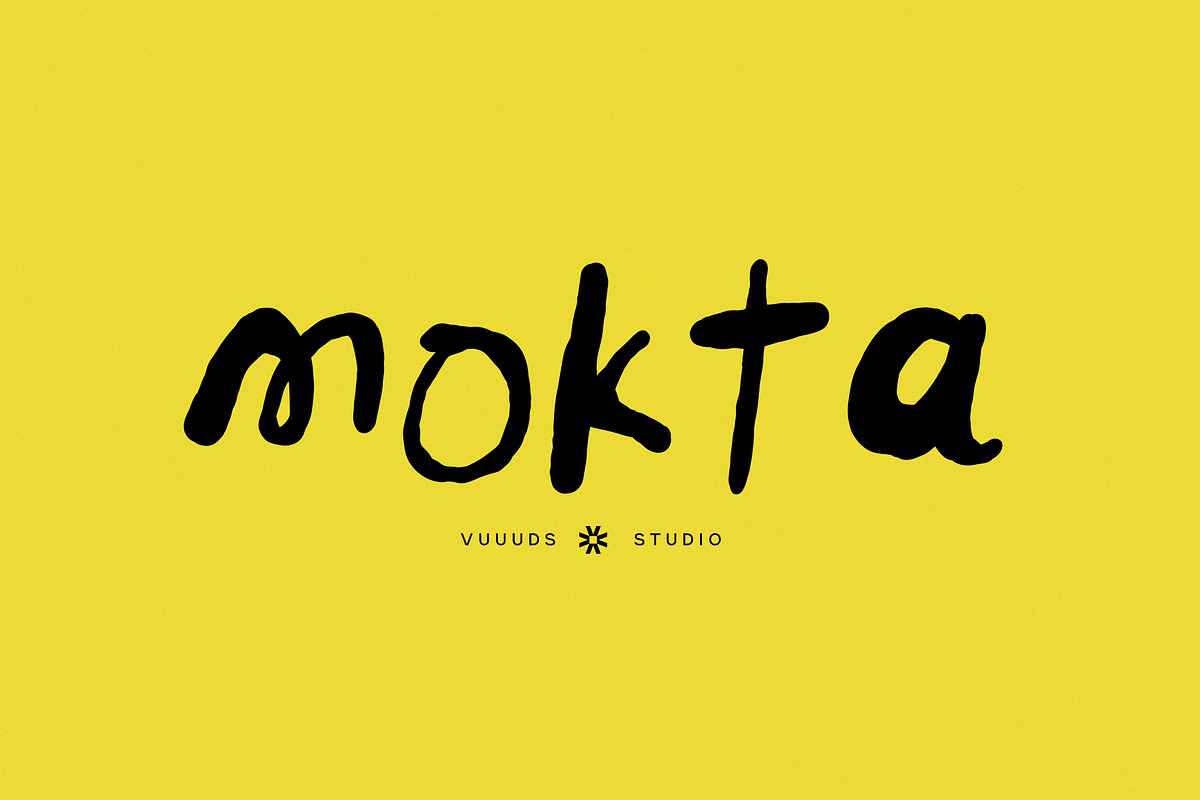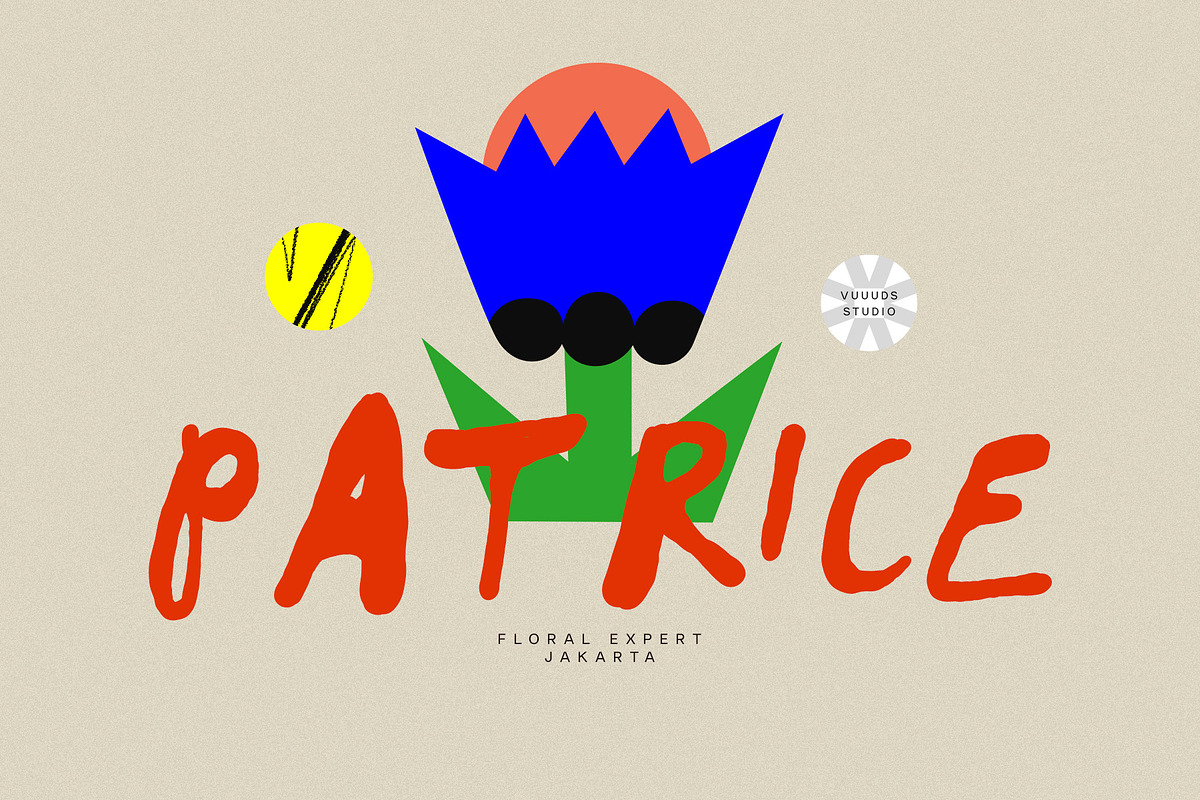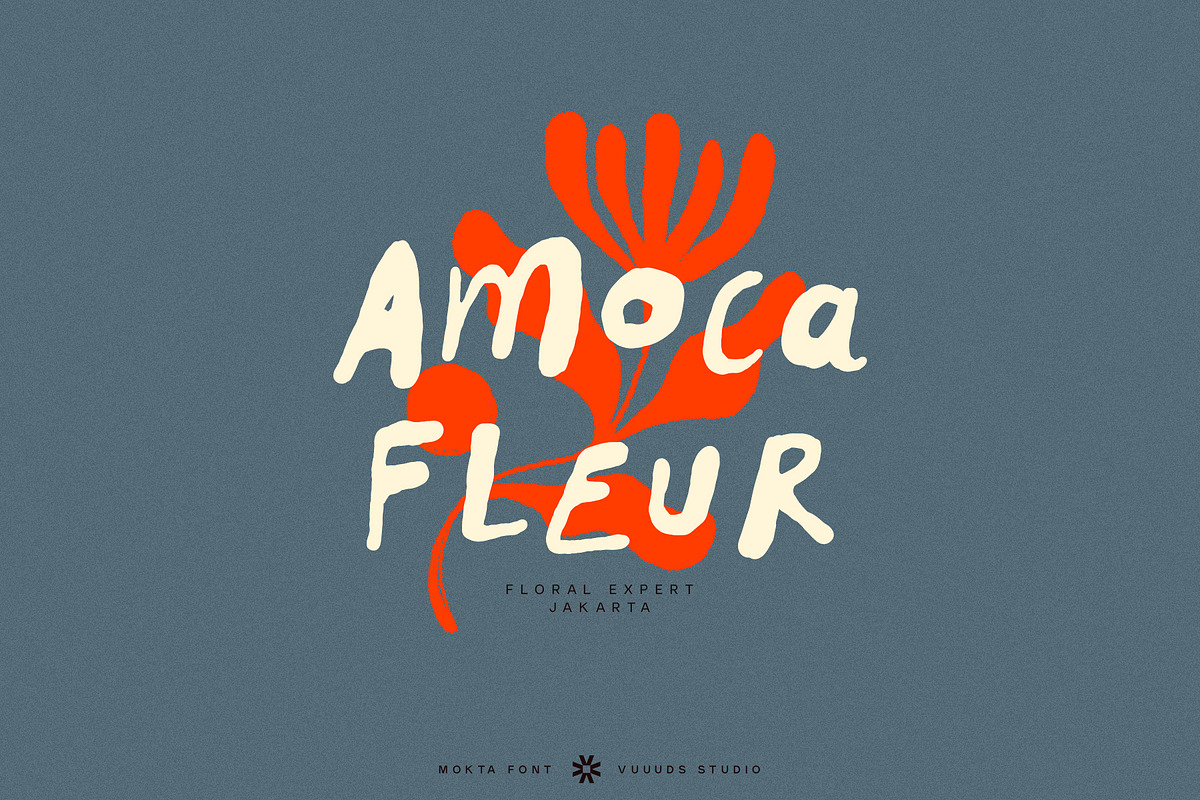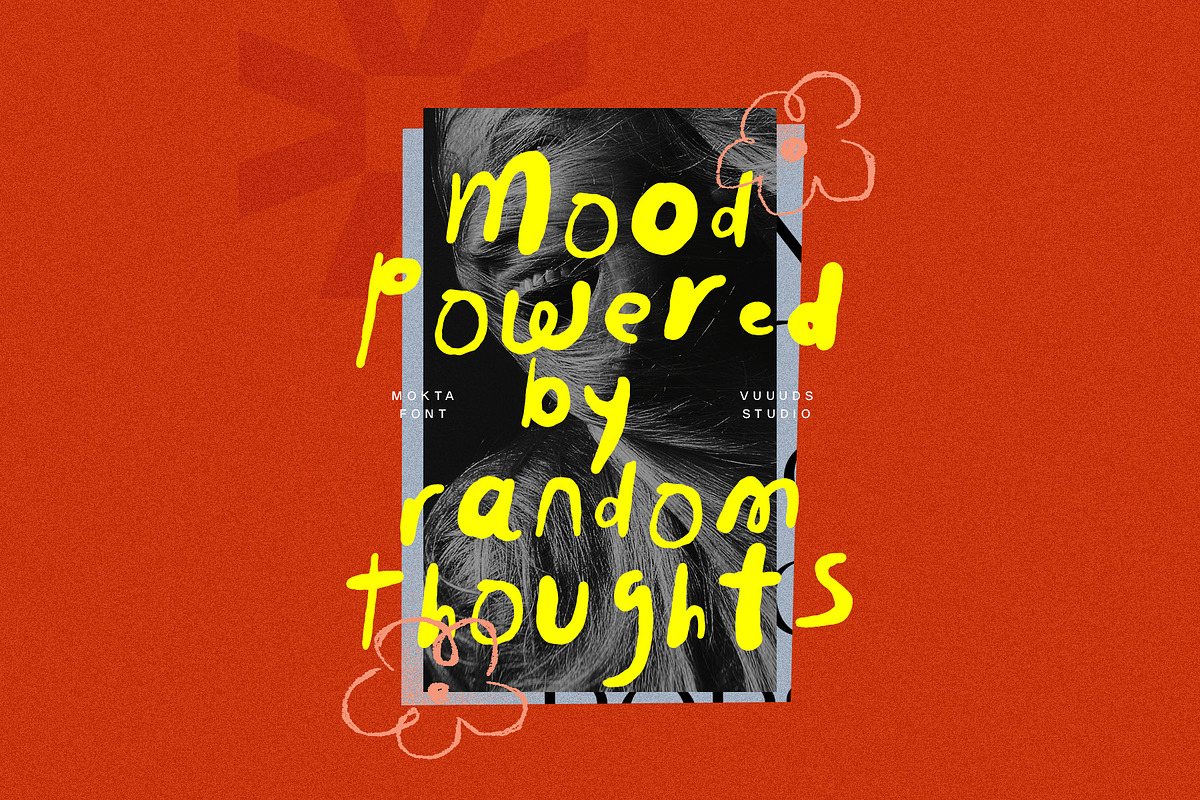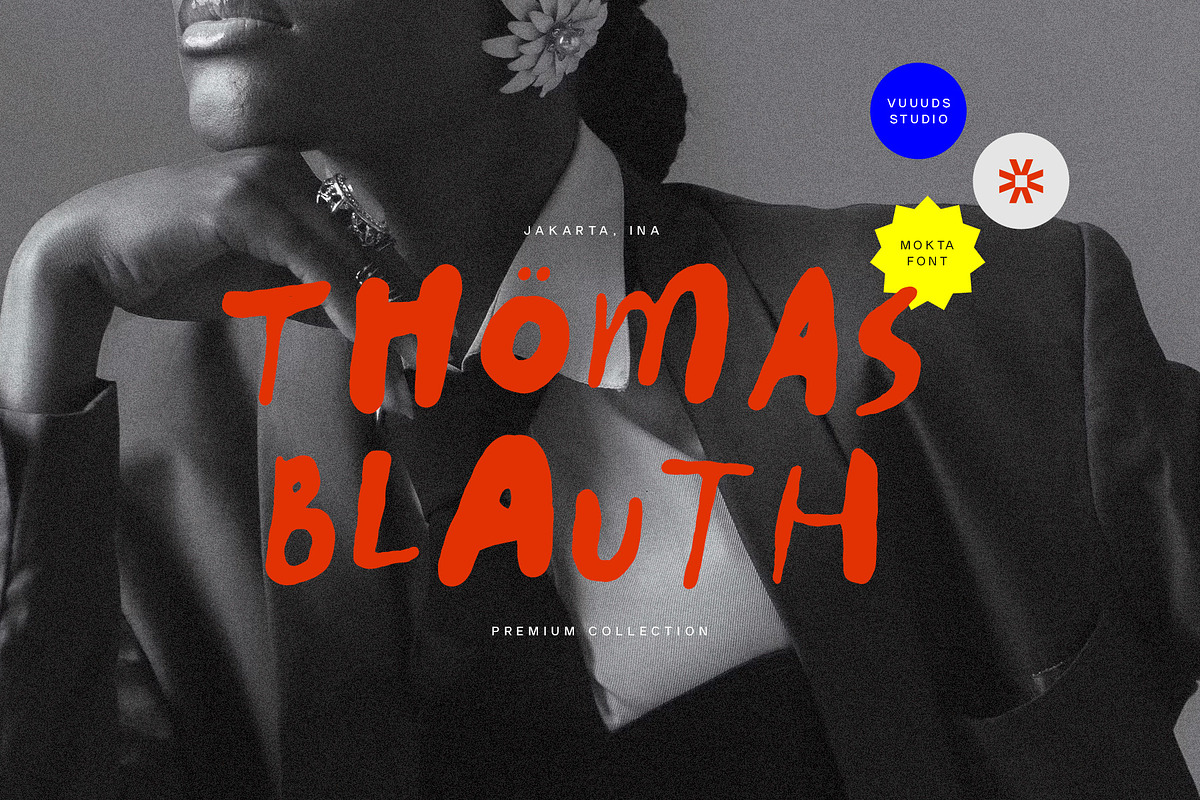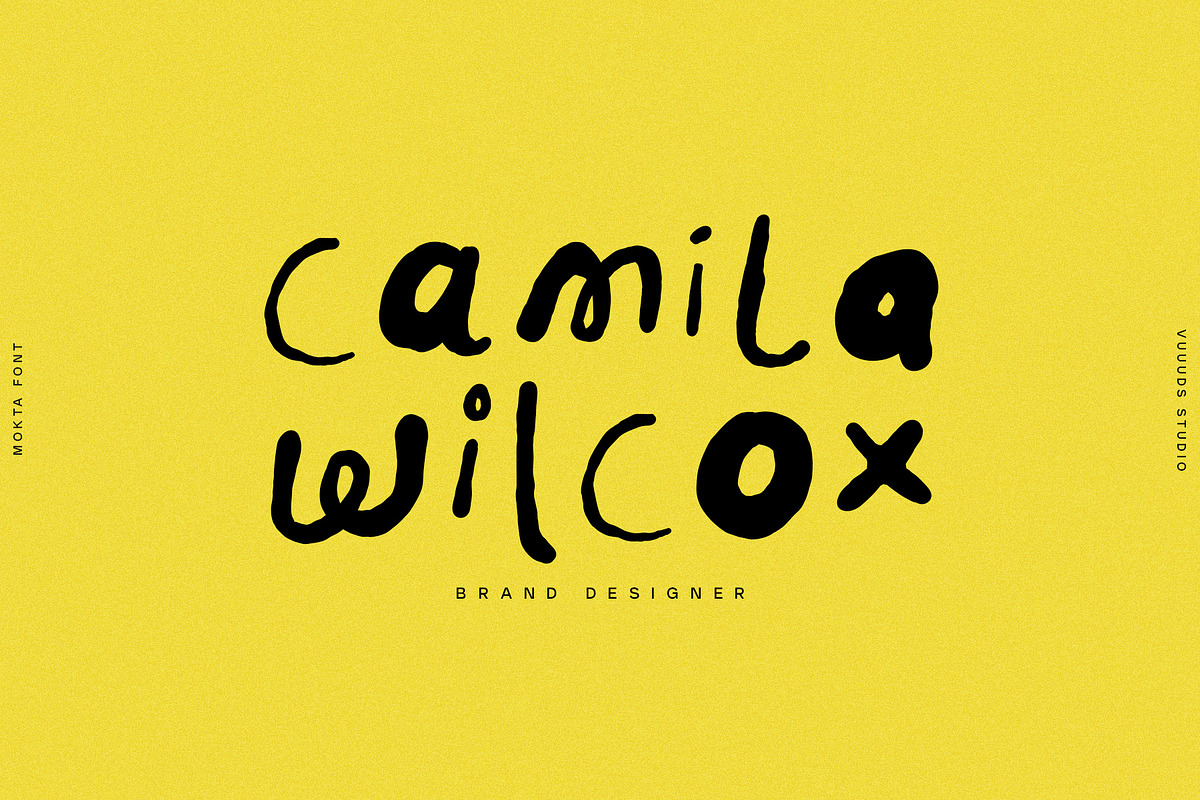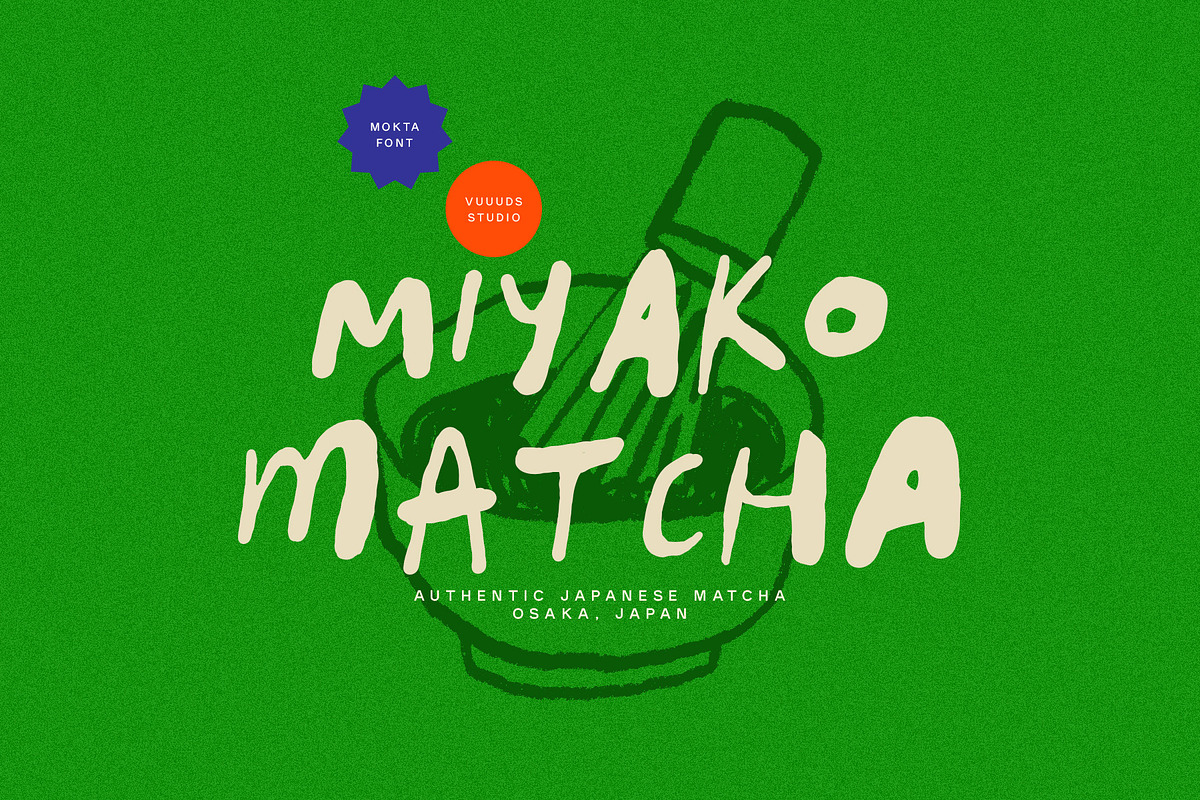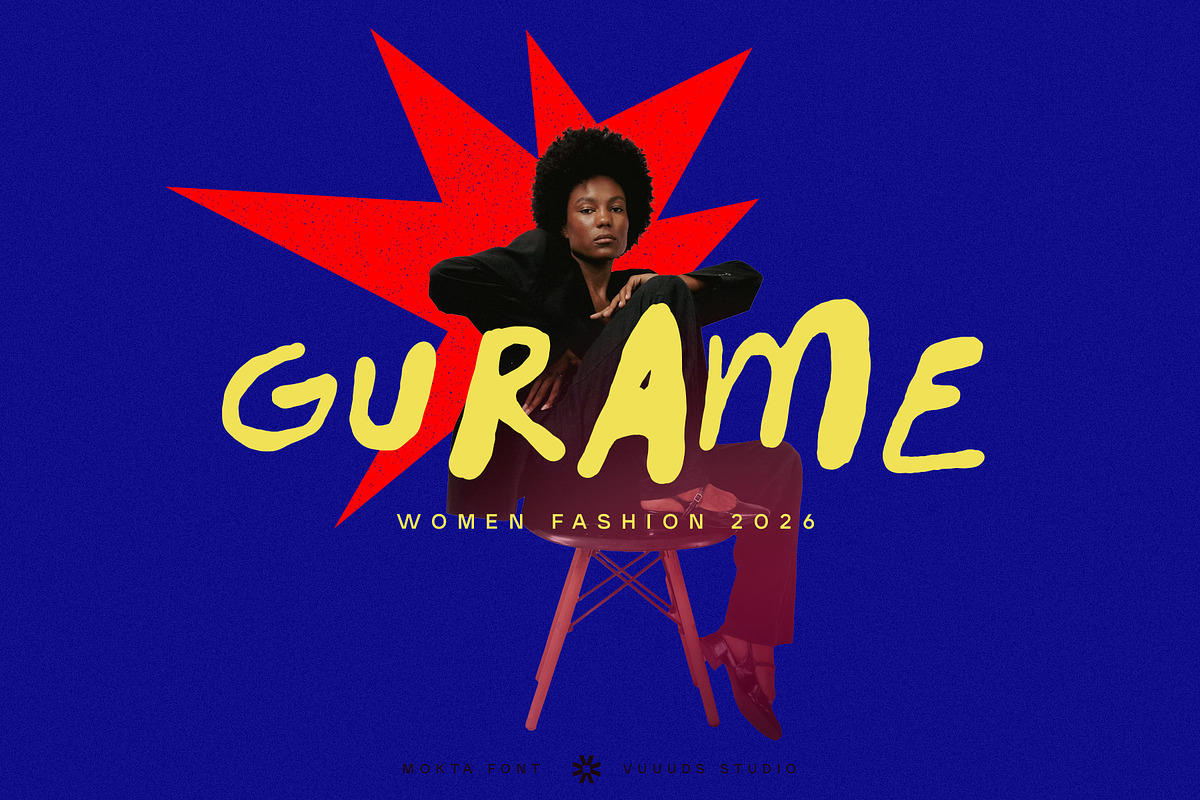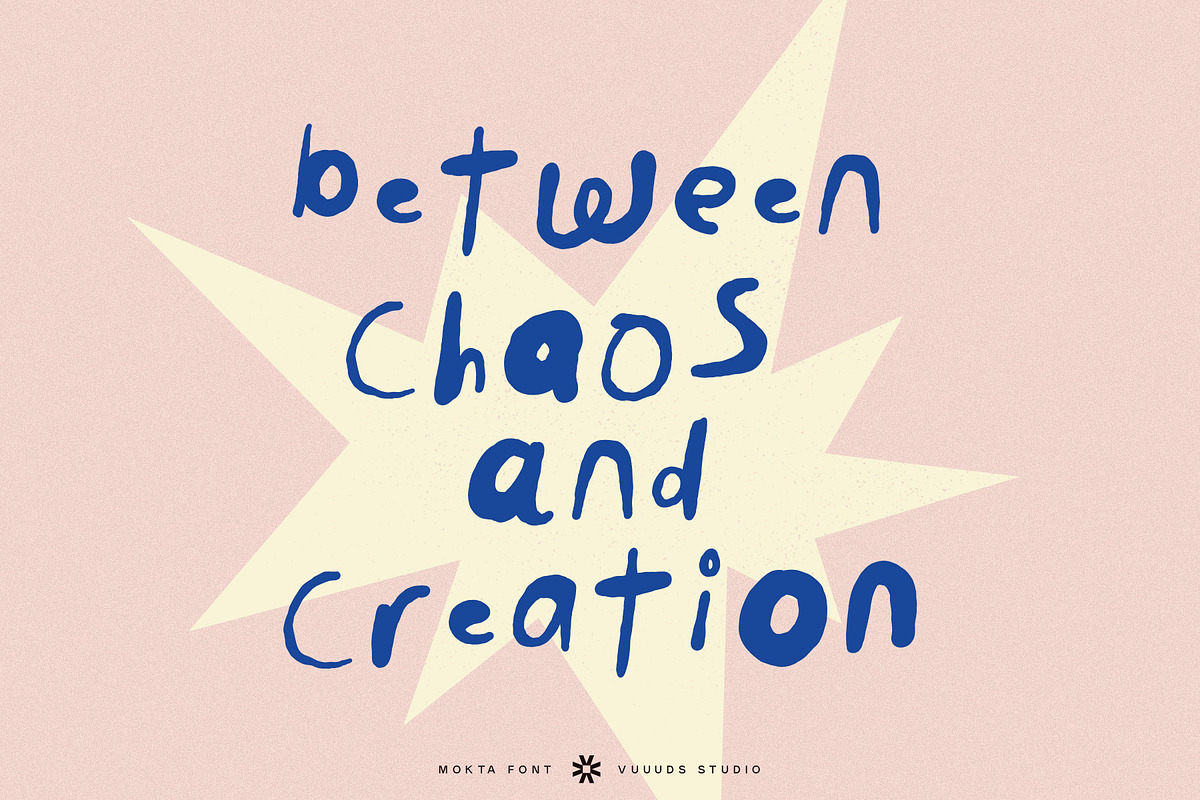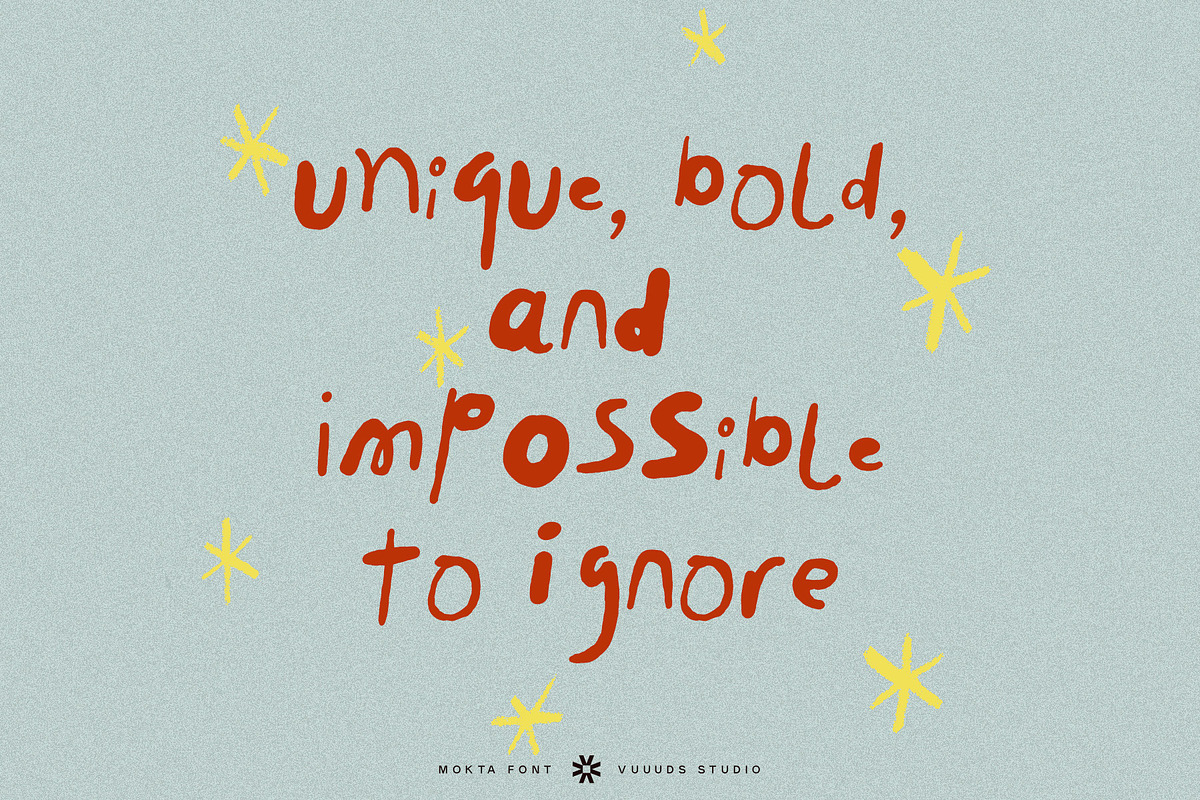
Mokta
Introducing Mokta
Crafted stroke by stroke, Mokta brings the raw power of an authentic brush style right to your screen. It’s loud, it’s organic, and it’s engineered to make your design projects pop instantly. Perfect for Bold branding, Logos, Catching Packaging, Punchy Social Media Headlines, etc.
Multi languages support:
ÀÁÂÃÄÅÆÇÈÉÊËÌÍÎÏÐÑÒÓÔÕÖØÙÚÛÜÝŸ
àáâãäåæçèéêëìíîïðñòóôõöøùúûüýÿ